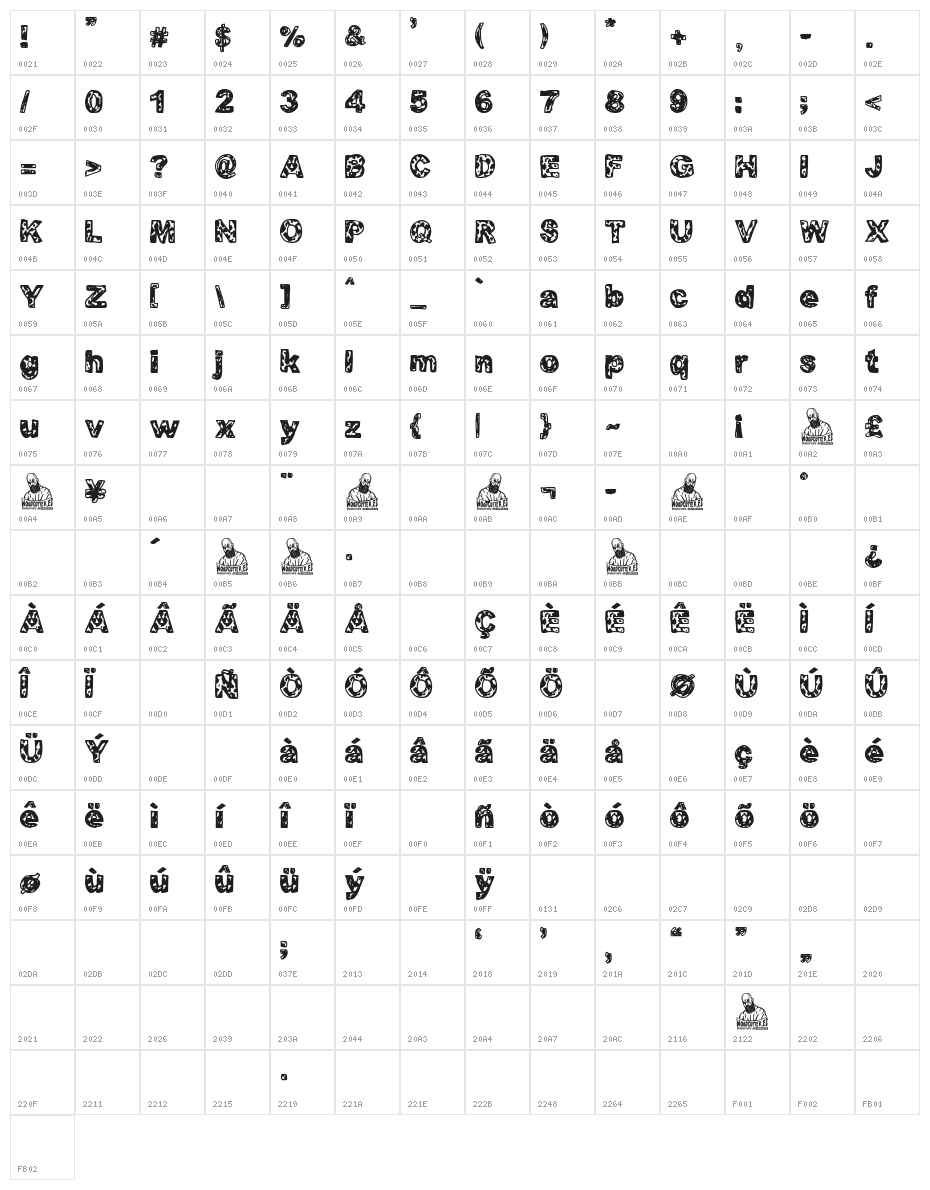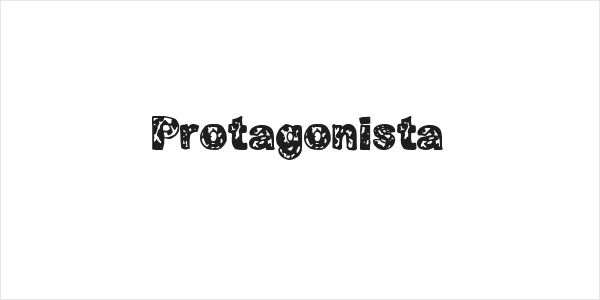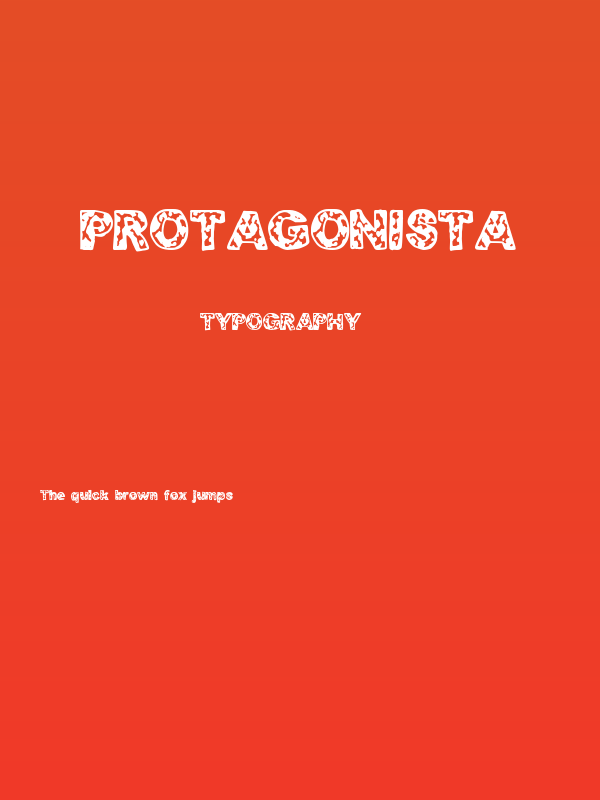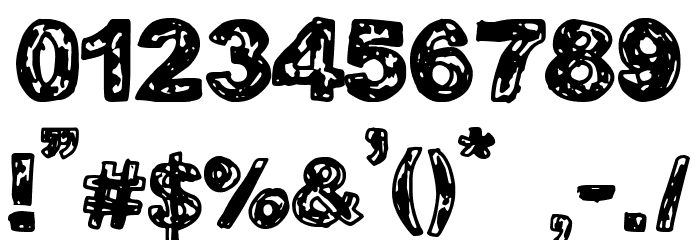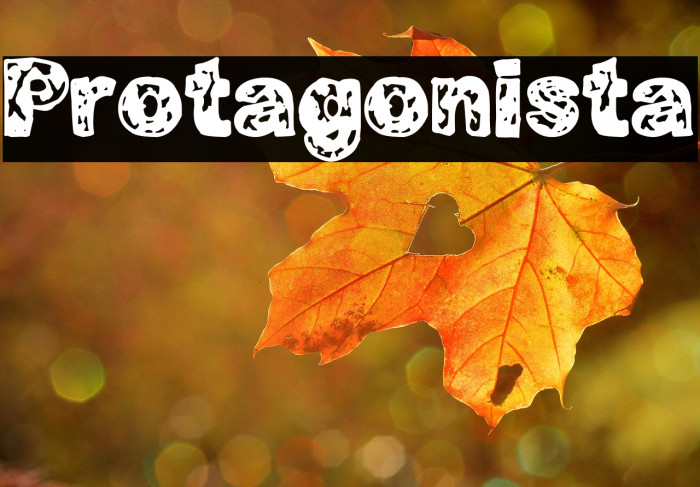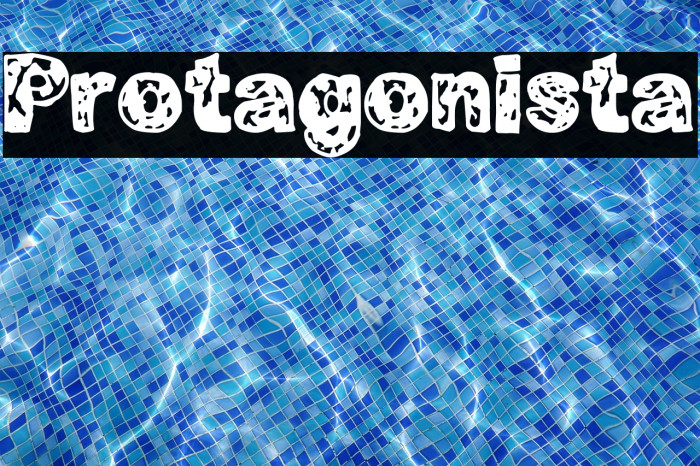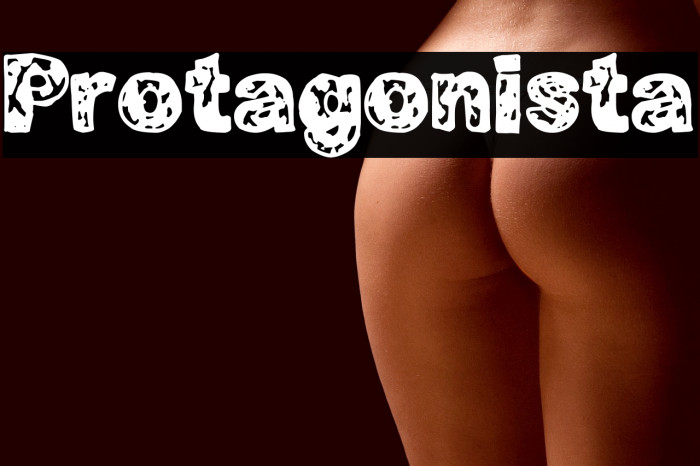
Protagonista Font
Protagonista Description
This font features a bold and playful design with a distressed texture that gives it a unique, rugged appearance. Each character is filled with irregular patterns, creating a sense of movement and energy. The uppercase and lowercase letters maintain a consistent style, with rounded edges and a slightly chunky form. Numbers and special characters follow the same aesthetic, making the font versatile for various creative projects. The overall look is eye-catching and suitable for designs that require a bold statement.
| Overall Style | Decorative |
| Proposed Projects | Ideal for posters, album covers, children's book titles, and any project needing a bold, artistic touch. |